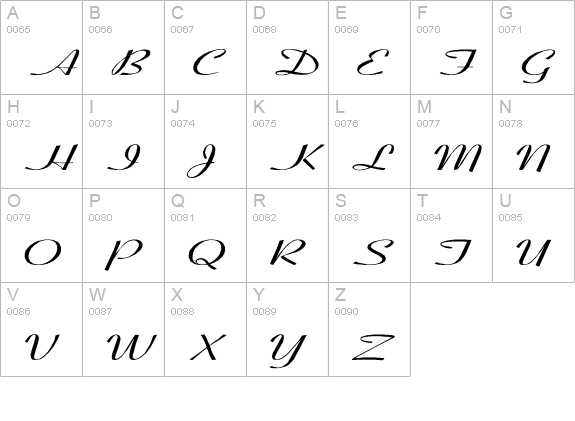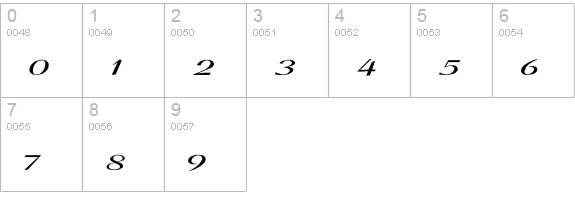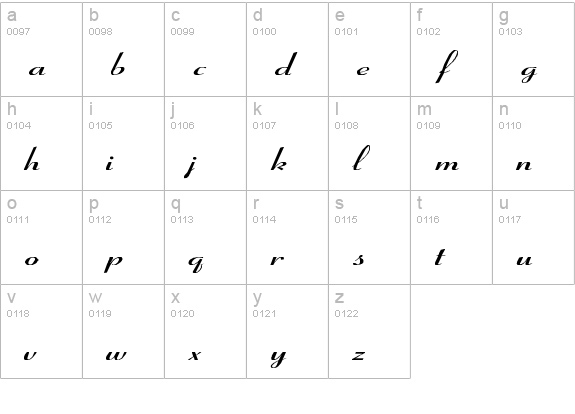
Coronet-SemiBold-Italic Ex is a sub-bold, structured, italic variant in the Coronet typeface family \xE2\x80\x94 well suited to sub-headlines and emphasised passages.
Coronet-SemiBold-Italic Ex font exudes a sense of elegance and sophistication with its bold and italicized design. This font is perfect for adding a touch of flair to your projects while maintaining readability and professionalism. The unique combination of semi-bold weight and italic slant creates a striking visual impact that is sure to captivate your audience. What makes Coronet-SemiBold-Italic Ex font even more appealing is that it is available for free download at FontsMarket.com. This means you can enhance your designs with this stunning font without any cost involved. Whether you're working on a creative project, branding materials, or any other design endeavor, Coronet-SemiBold-Italic Ex font is a versatile choice that will elevate your work to the next level. Download it today and unleash your creativity!